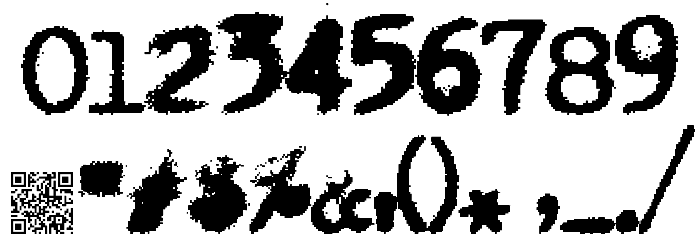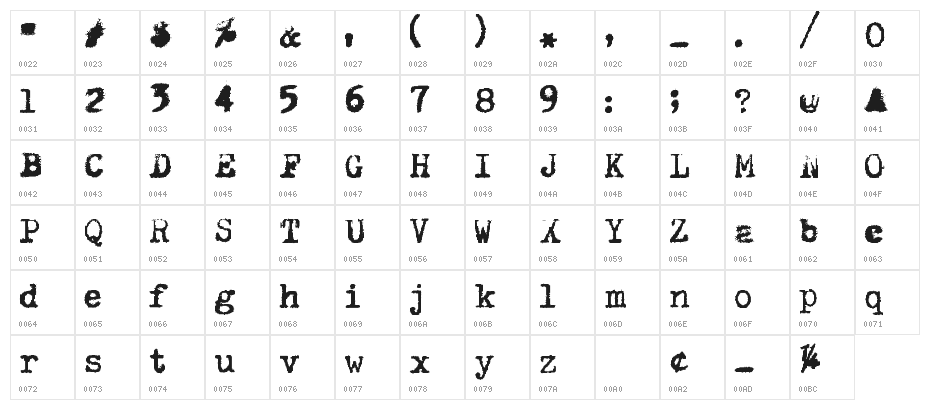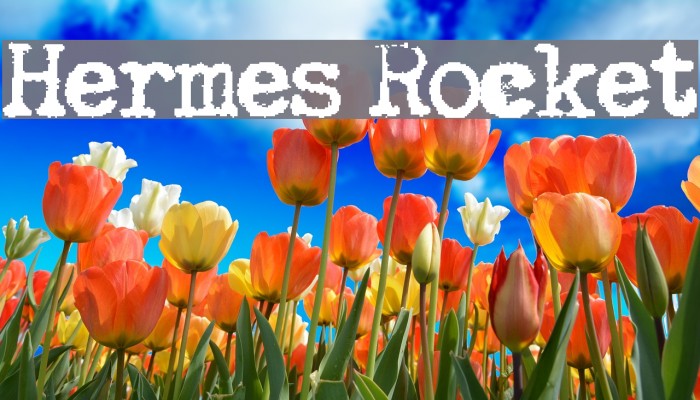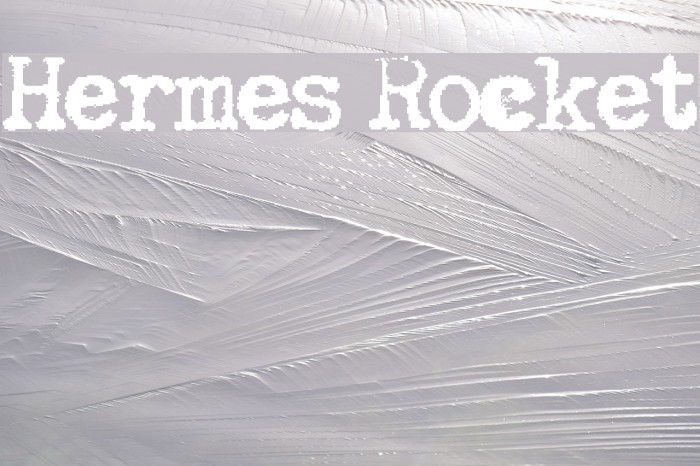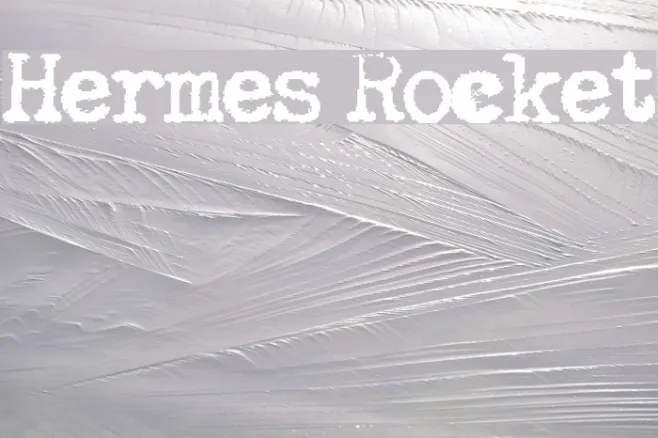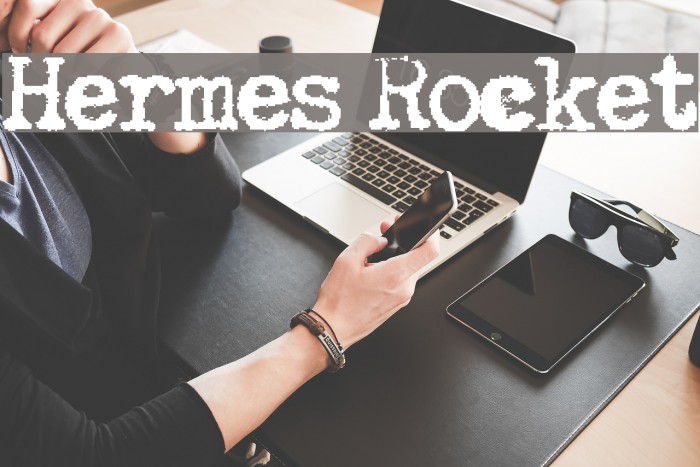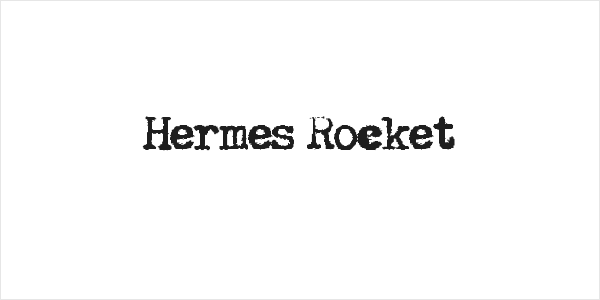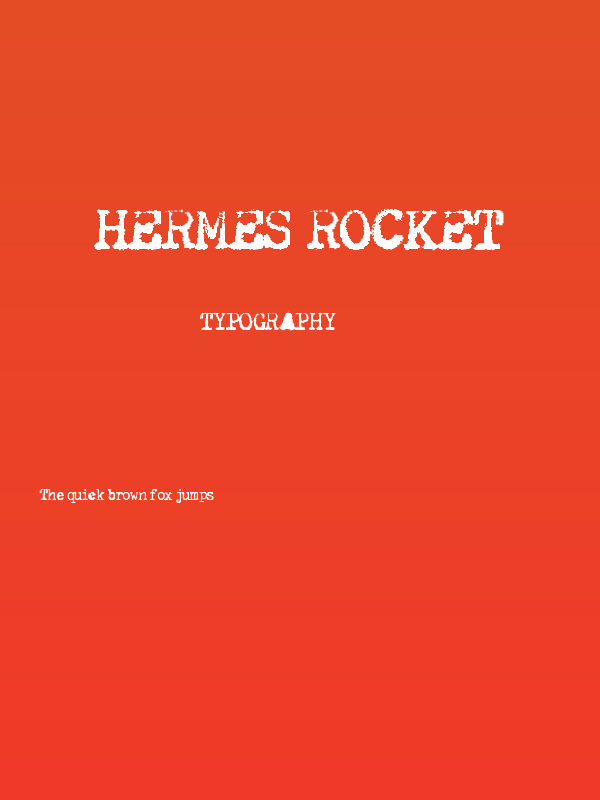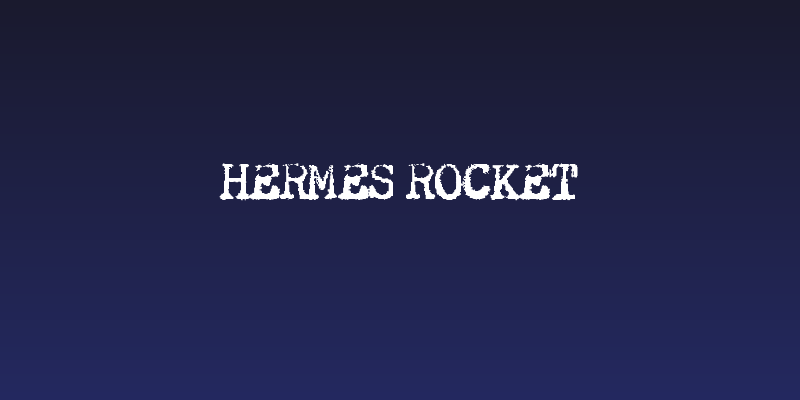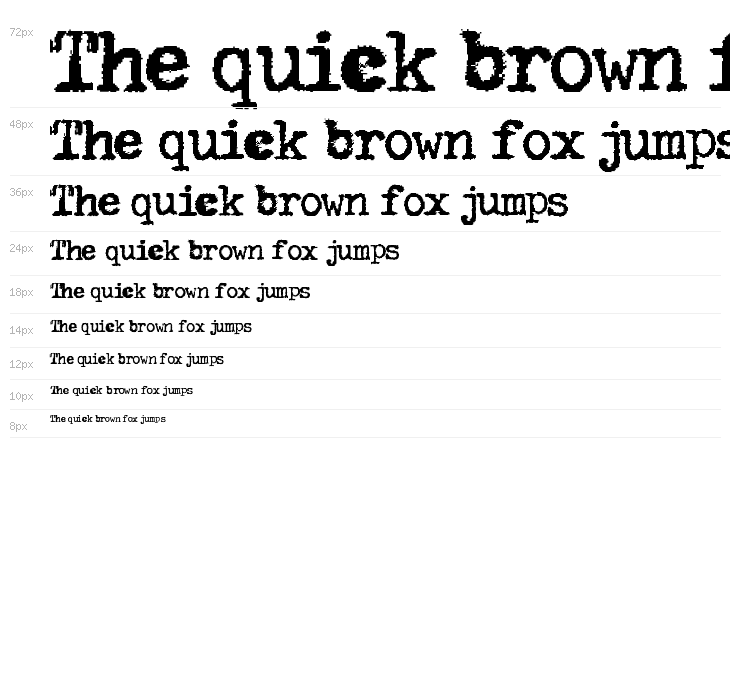
Hermes Rocket Font
Hermes Rocket Description
This font features a distressed, textured appearance that gives it a rugged and vintage feel. The characters are bold with uneven edges, resembling a typewriter style that has been weathered over time. The uppercase letters are prominent and commanding, while the lowercase letters maintain a consistent style with slightly rounded forms. Numbers and special characters follow the same distressed aesthetic, adding to the overall cohesive look. The font's unique texture makes it stand out, ideal for projects that require a touch of nostalgia or a handcrafted vibe.
| Proposed Projects | Ideal for vintage posters, retro-themed designs, album covers, and branding that requires a handcrafted or nostalgic touch. |